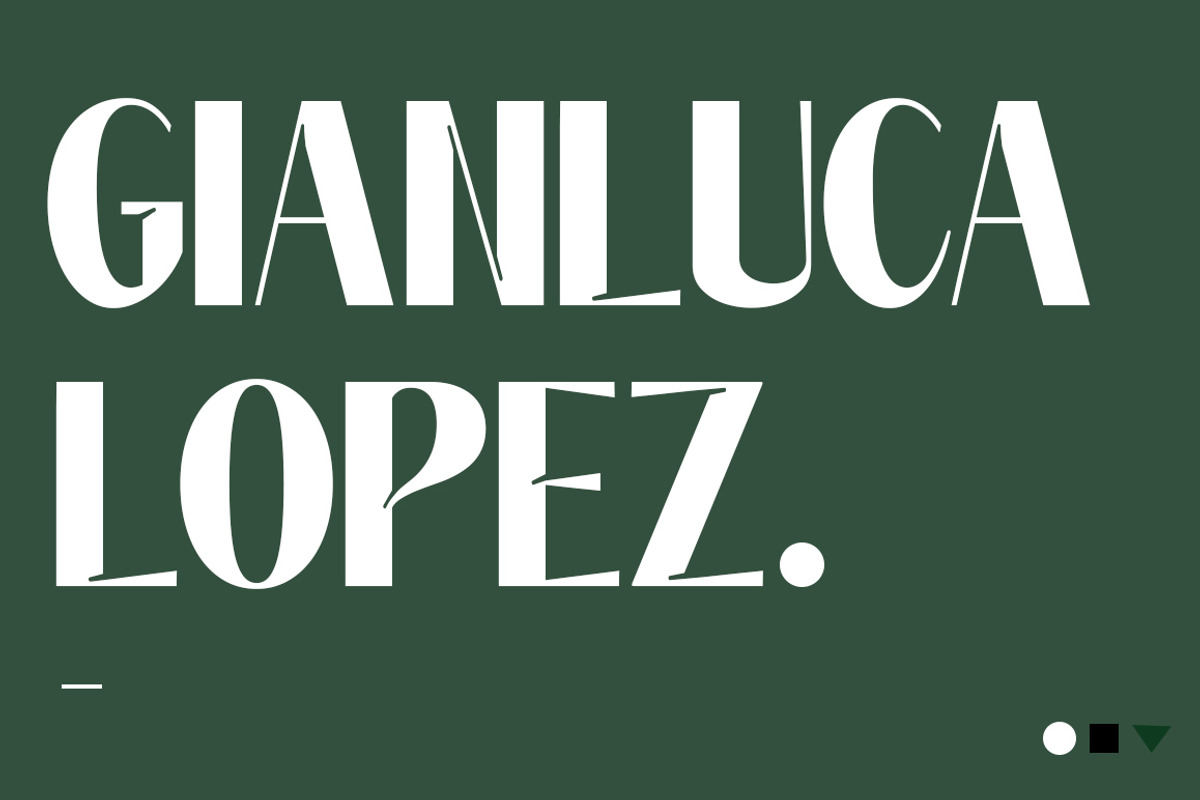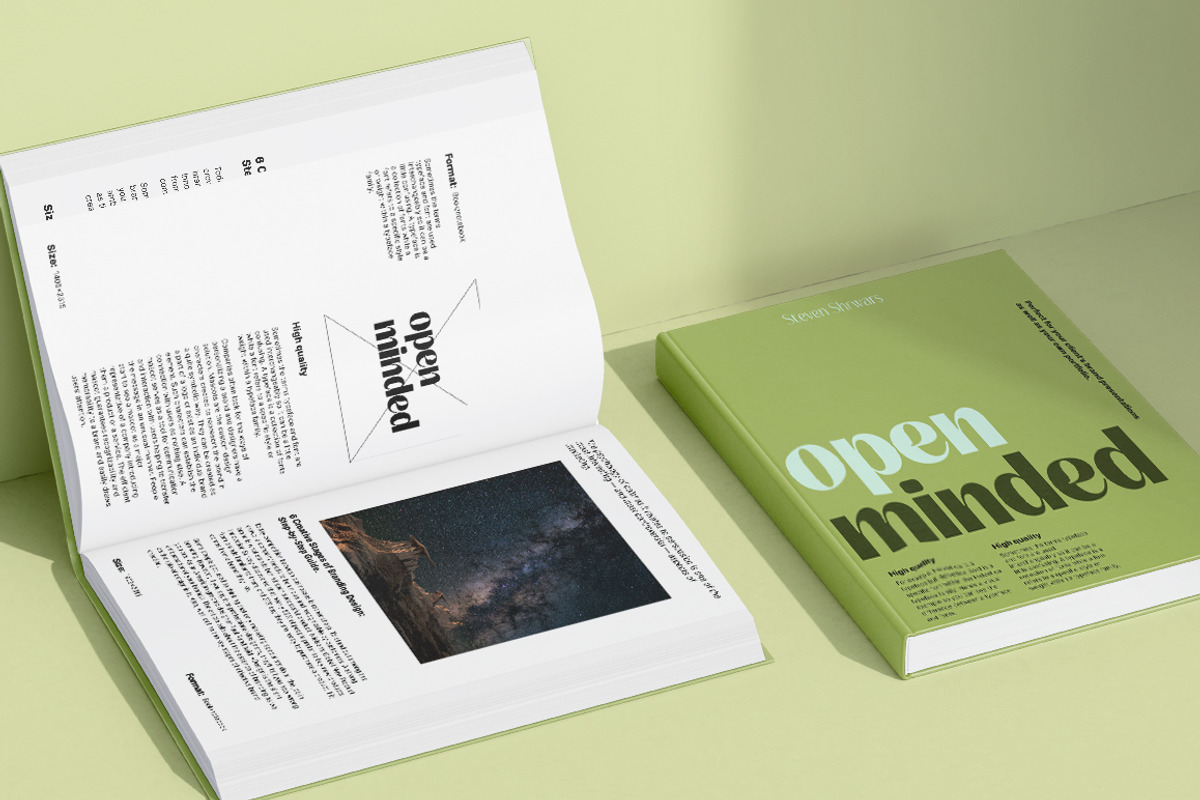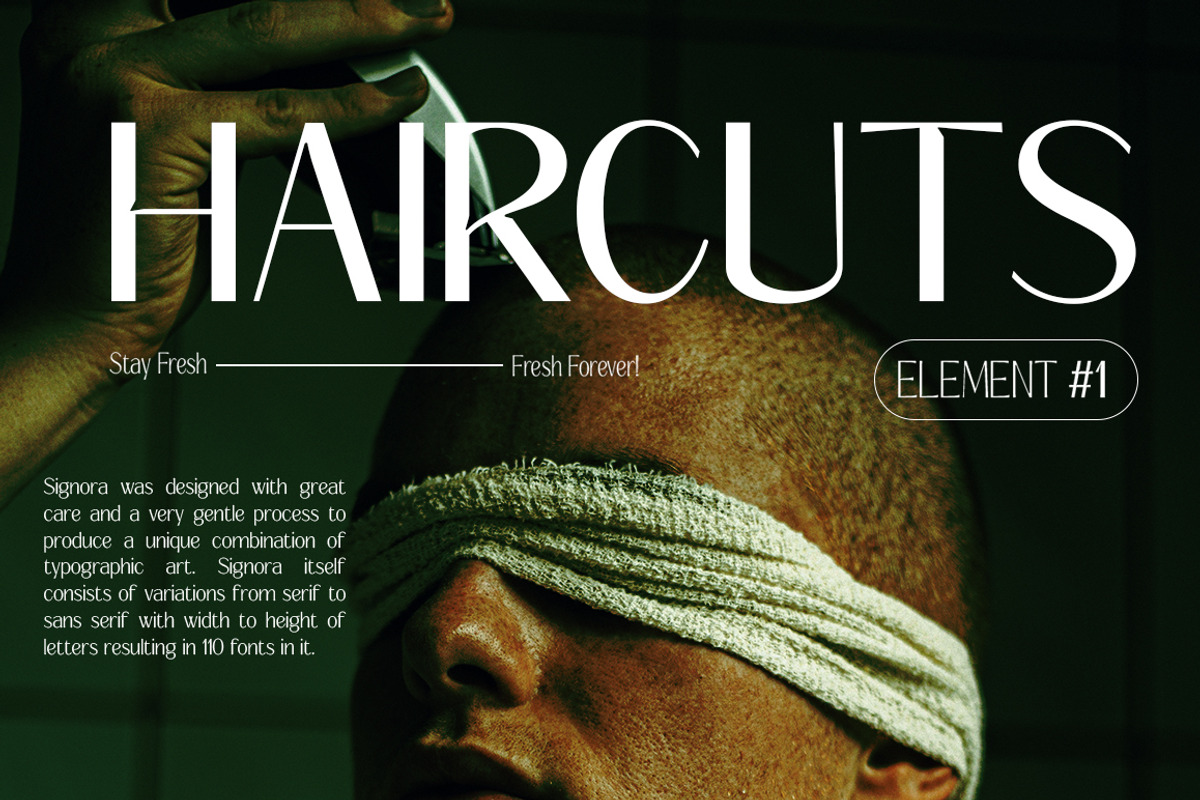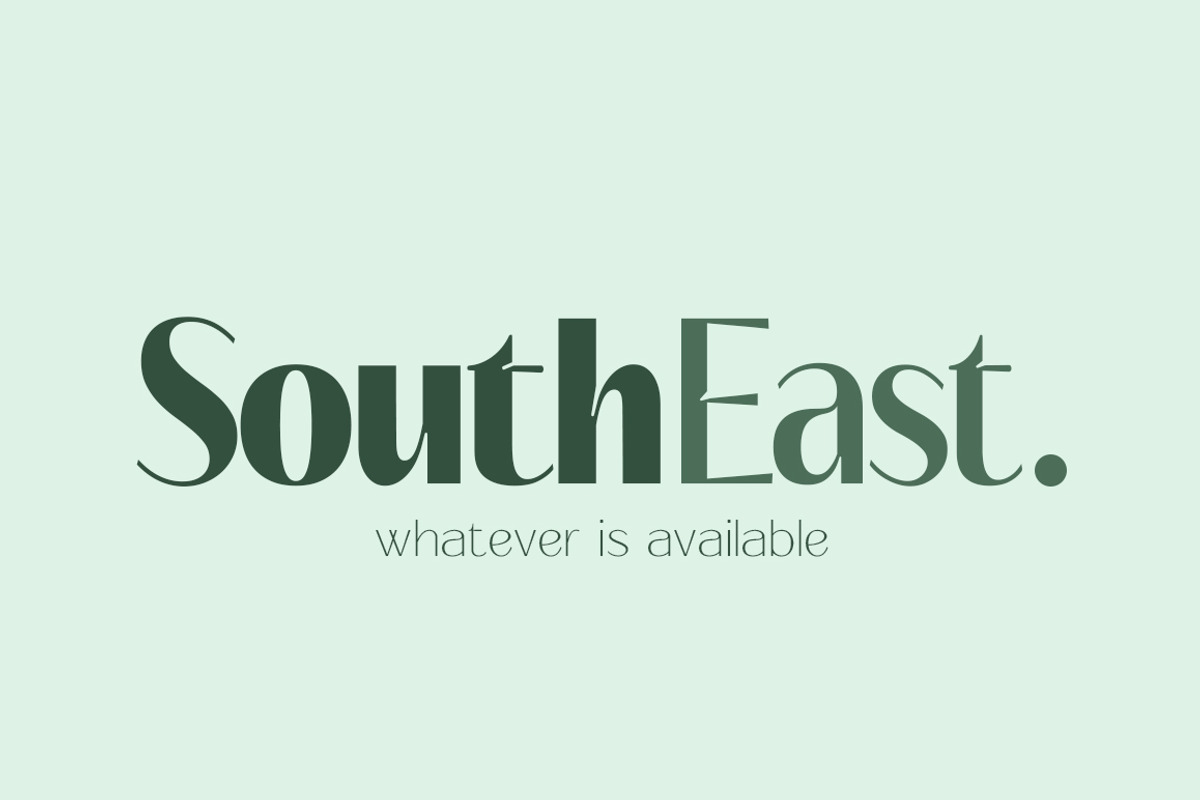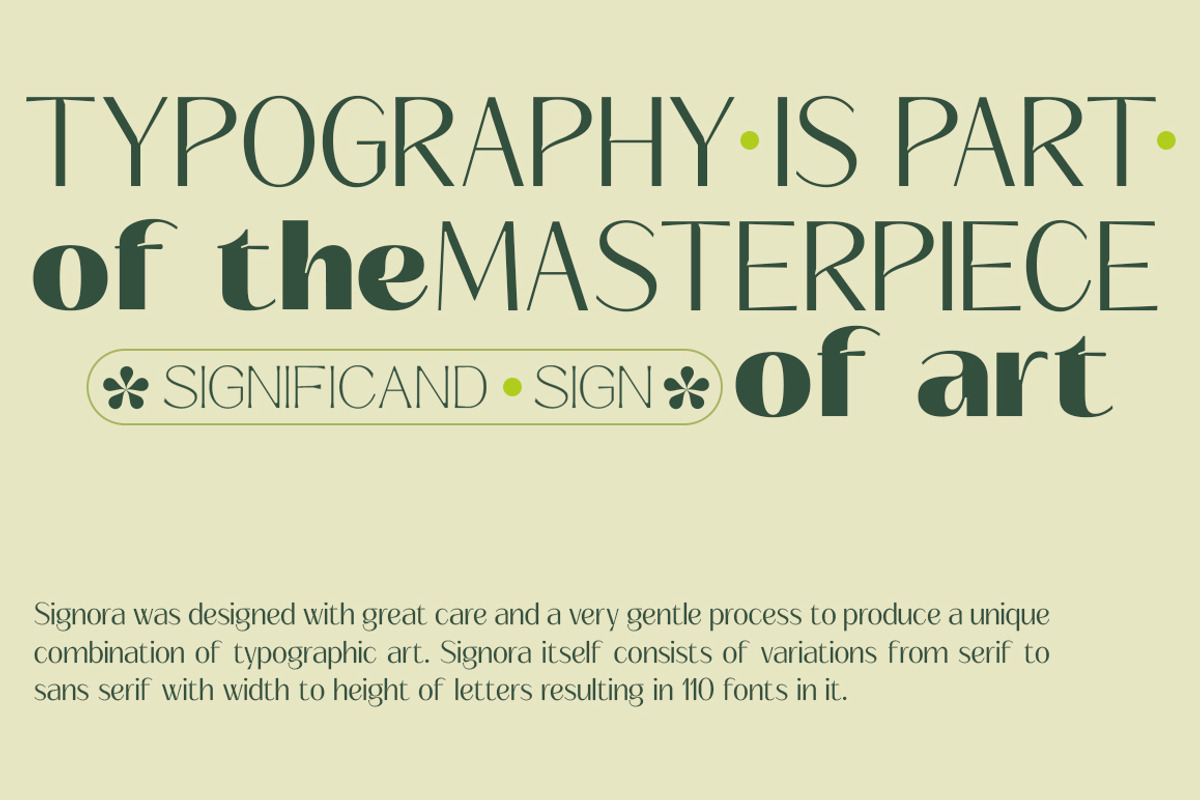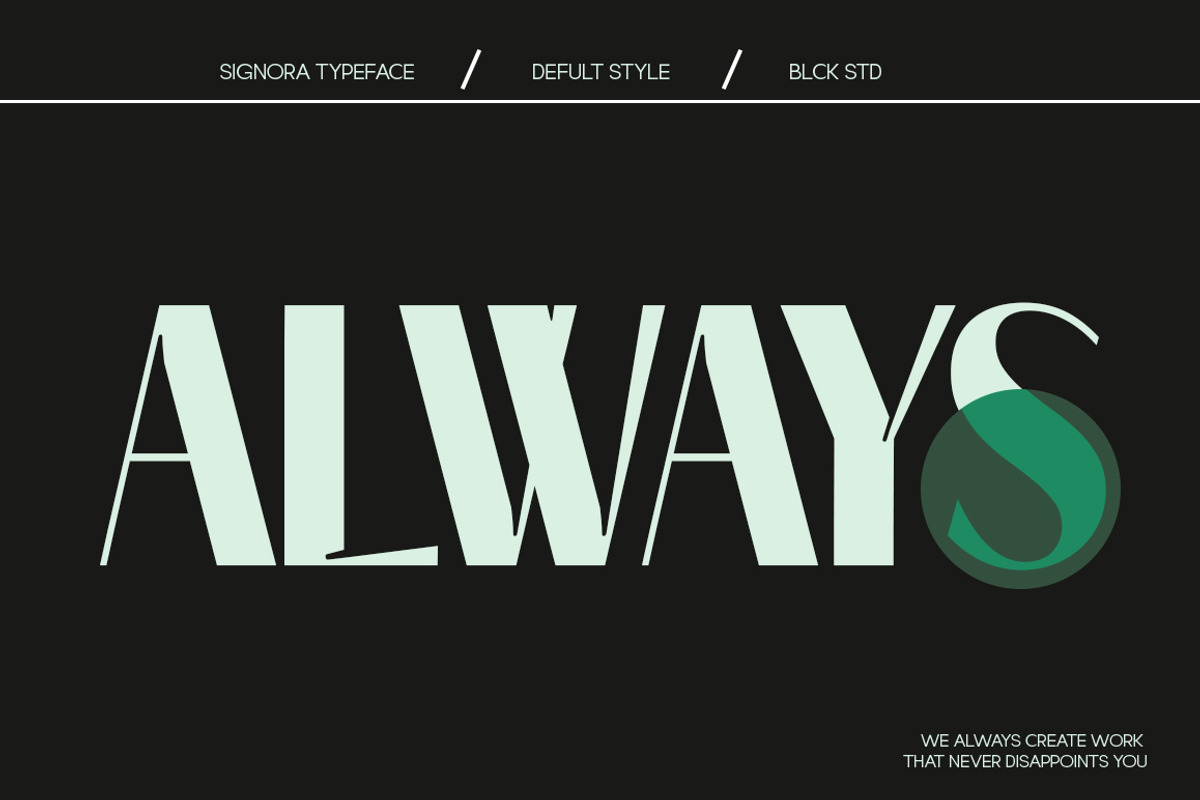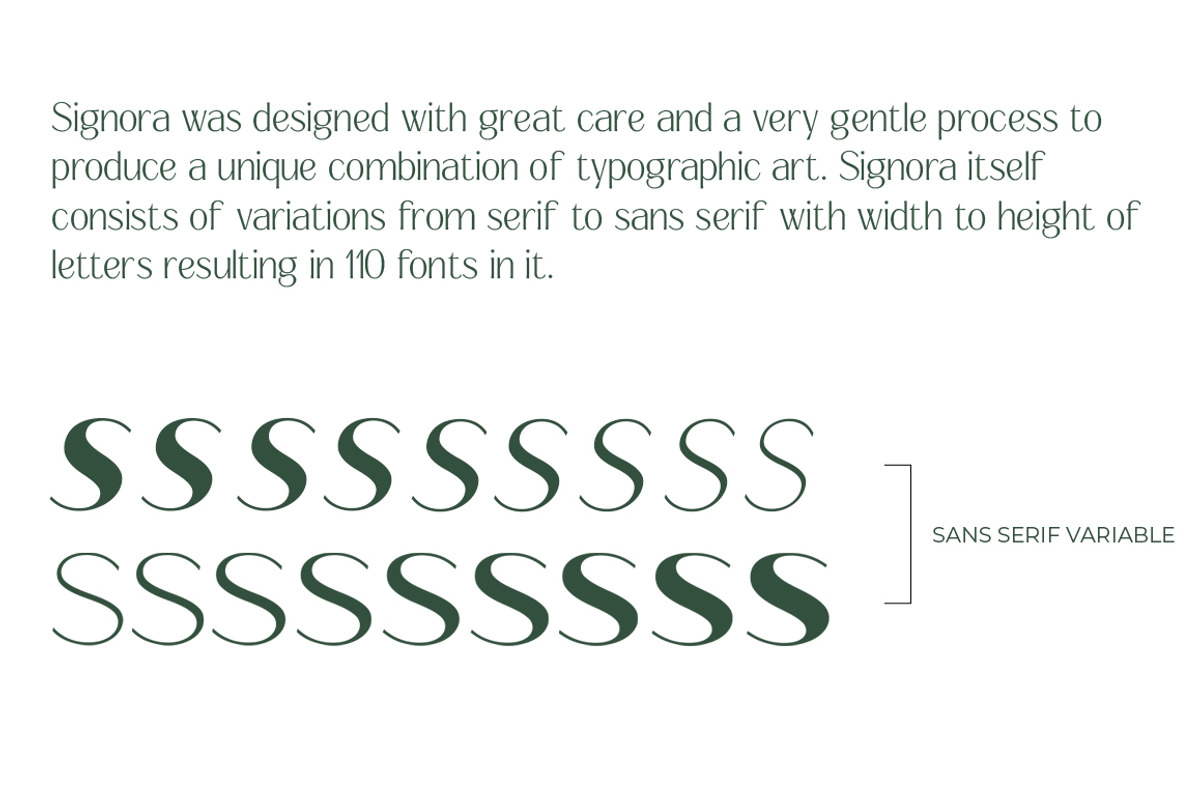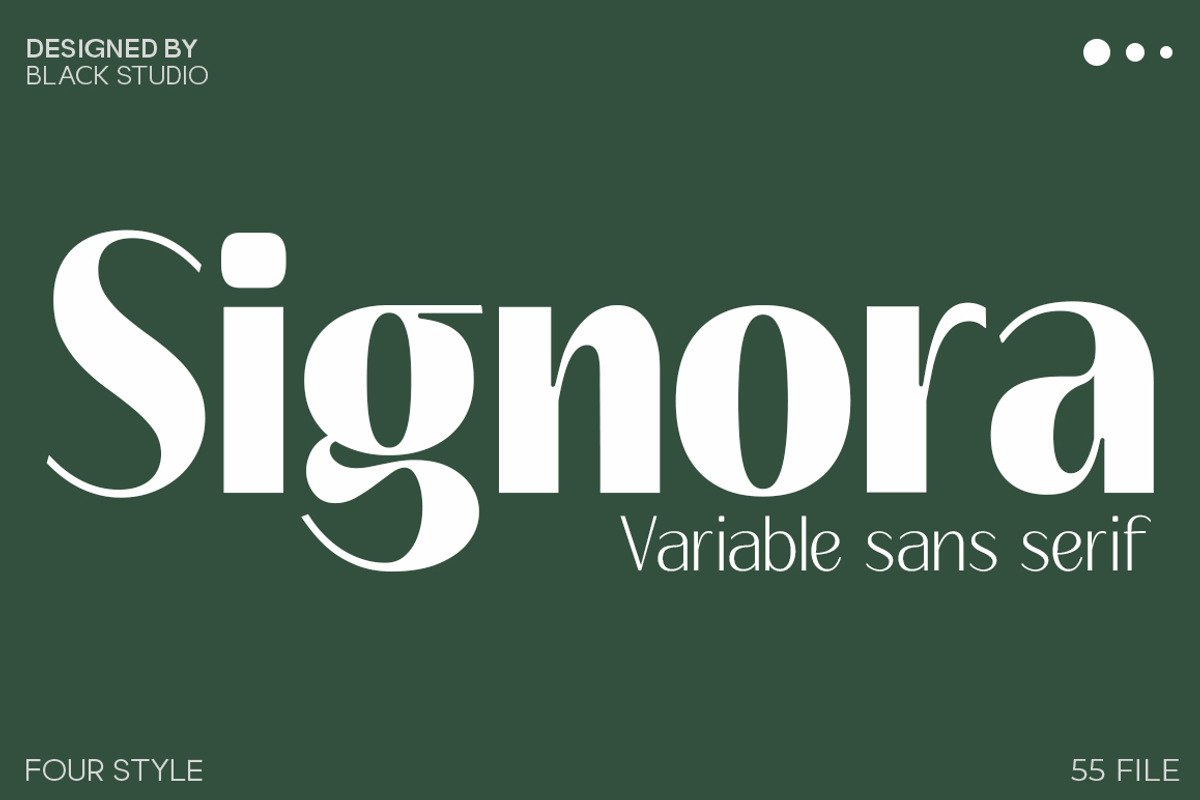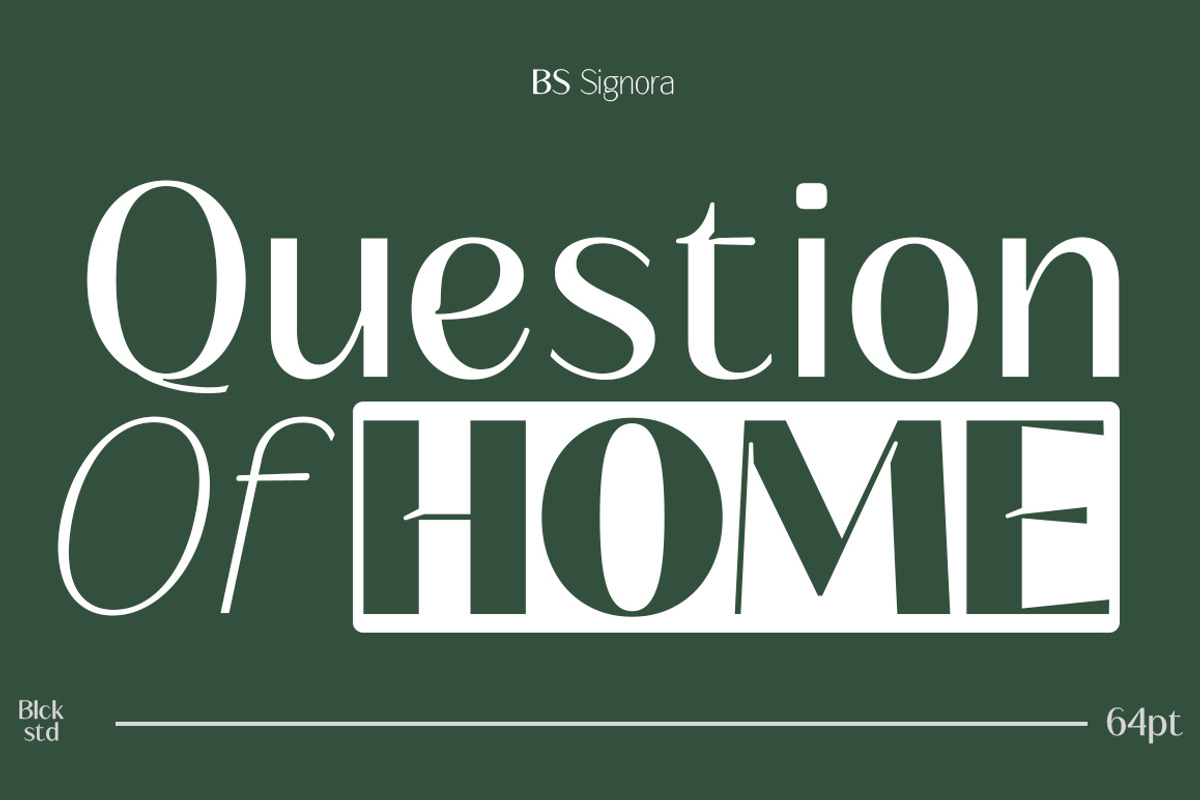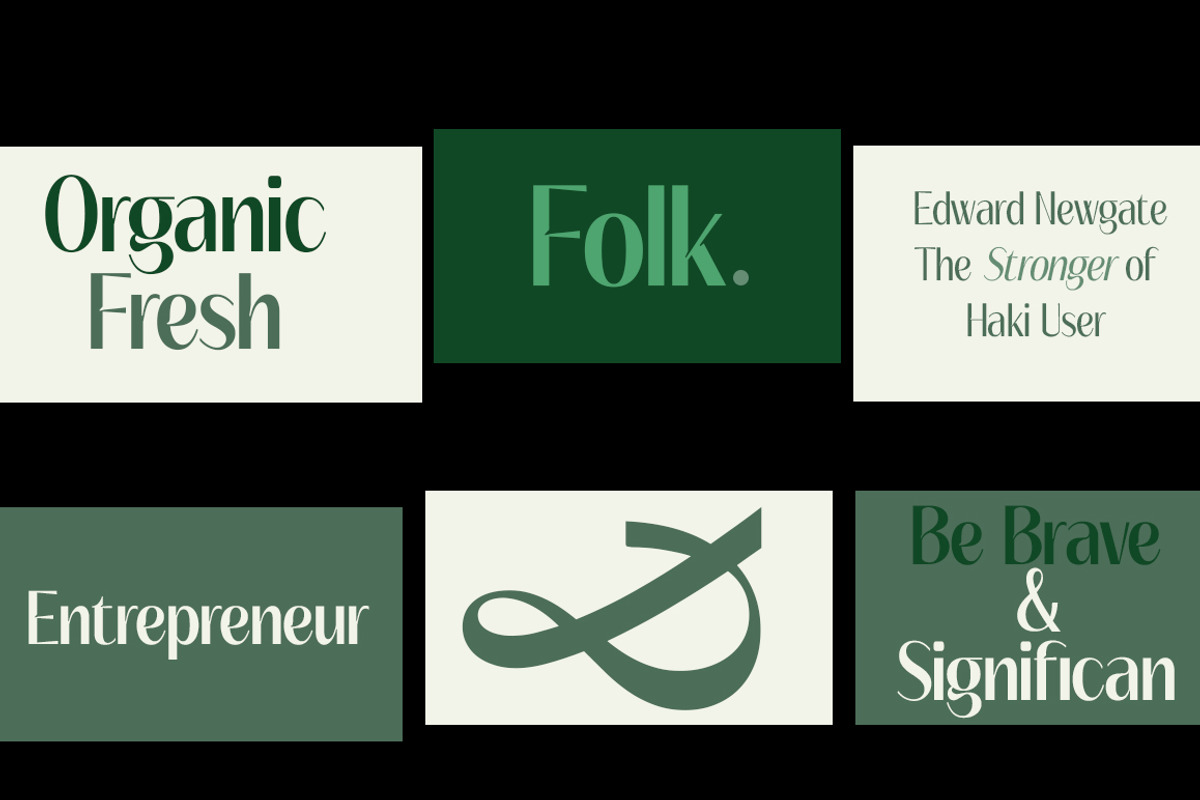
Signora | Sans Serif Family
Signora Variable Sans Serif
Signora is a refined variable sans serif that blends contemporary minimalism with the grace of high-fashion typography. Inspired by editorial design and luxury branding, Signora features soft curves, elegant proportions, and distinctive calligraphic influences that create a sophisticated yet highly versatile typeface.
Its unique character details—especially in letters such as g, S, and a—give the typeface a recognizable personality while maintaining excellent readability. From premium branding and magazine headlines to packaging, logos, and digital interfaces, Signora delivers a modern aesthetic with timeless elegance.
Designed as a variable font family, Signora offers extensive flexibility, allowing designers to seamlessly adapt weight, width, and stylistic expression across a wide range of creative applications.
Variable Font Technology
4 Distinct Styles
Multiple Weights & Widths
Uppercase & Lowercase Characters
Multilingual Language Support
OpenType Features